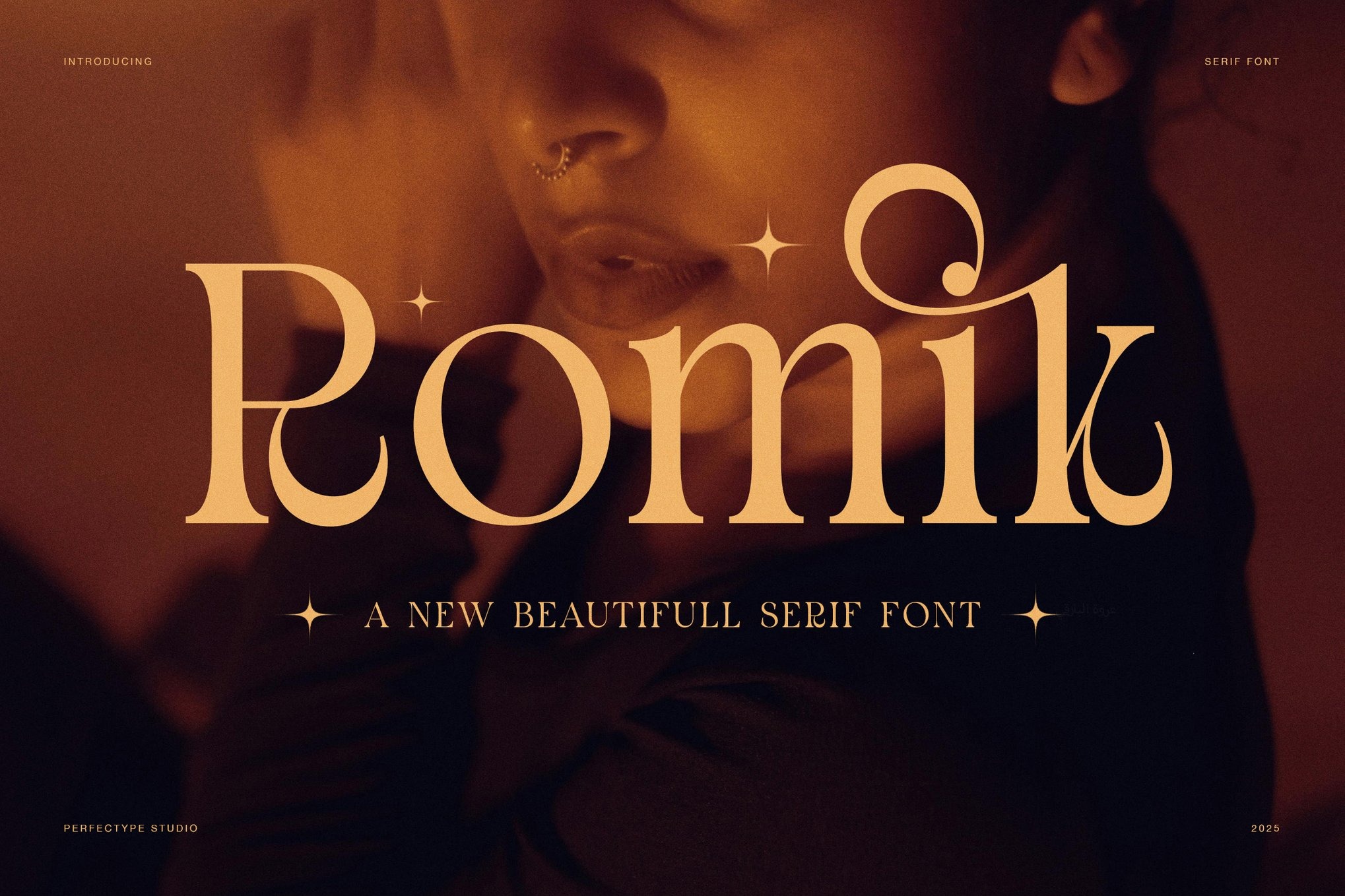
Romik Font
Romik Font is a clean and thoughtfully built typeface that works seamlessly for both professional branding and everyday creative uses. Romik is an elegant serif font crafted to bring sophistication and refined style to your design work. This elegant serif font blends classic structure with expressive details that enhance the look of every letter. With smooth curves and subtle contrasts, Romik adds a polished tone to creative projects that value clarity and beauty.
Moreover, Romik fits many design needs with ease. Designers can choose it for branding, logos, editorial layouts, and premium packaging. Because each character has balanced proportions and careful spacing, the font stays easy to read in both large headings and smaller body text. At the same time, its graceful shapes bring visual interest that elevates each layout.
In addition, Romik supports both print and digital projects, making it a versatile choice for designers. It works beautifully on wedding stationery, business cards, magazine spreads, and social media graphics. When you need a refined typeface that speaks to elegance and professionalism, this serif font delivers results with confidence. Creative Market
Furthermore, Romik helps you design efficiently. This font includes uppercase and lowercase letters, numerals, punctuation, and multilingual support, so you can build complete text layouts without switching typefaces. You can also pair Romik with simple sans serif fonts to create modern typography systems with balanced contrast.
Because of its elegant form and professional structure, Romik works well in both classic and contemporary designs. Use it for fashion brands, editorial headlines, wedding invitations, product presentations, and luxury branding projects. Each character reflects thoughtful design choices that prioritize harmony, readability, and visual attraction.